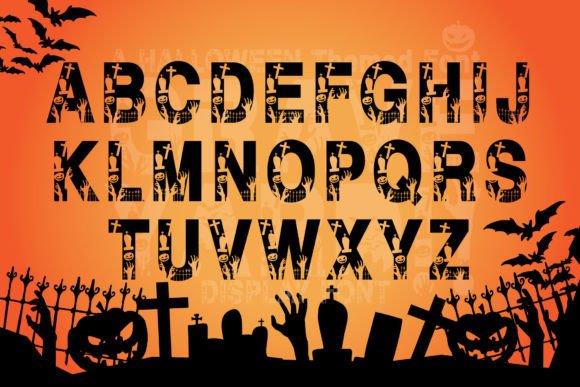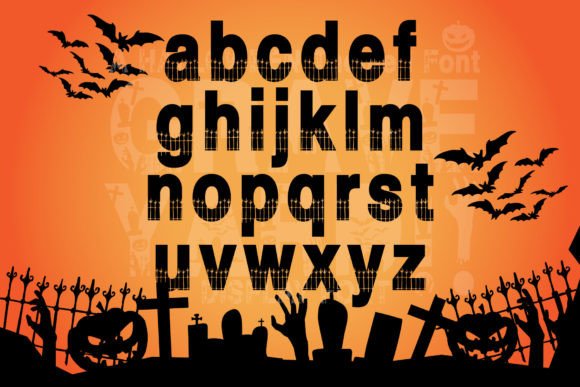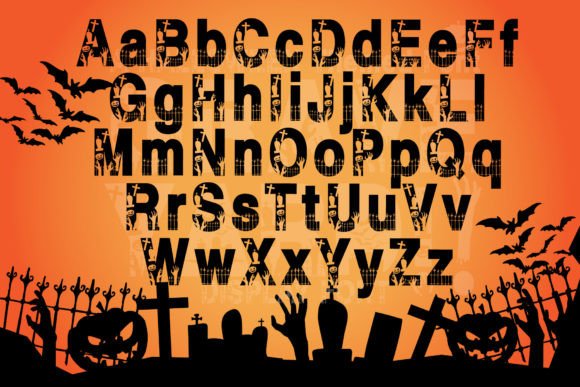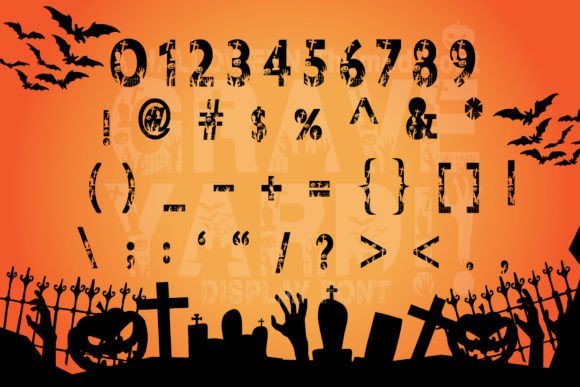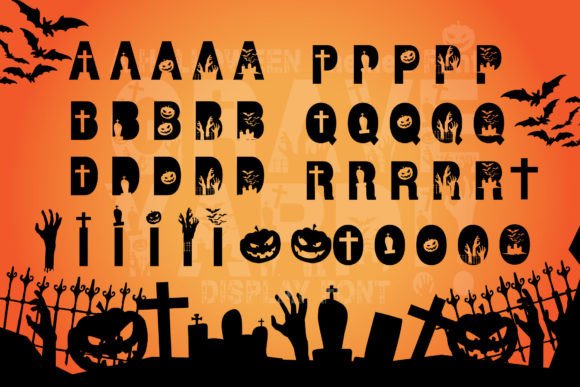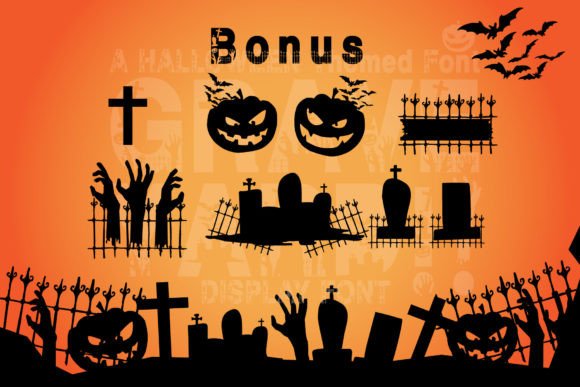
Unleash the Spookiness: All You Need to Know About Graveyard Font
As the spookiest time of the year approaches, designers and crafters are on the lookout for the perfect font to add a touch of eeriness to their Halloween-related projects. Look no further than the Graveyard Font, a thick-lettered and spooky decorative font that’s sure to send chills down the spine. In this article, we’ll dive into the world of Graveyard Font, exploring its features, benefits, and uses, as well as provide tips and inspiration for incorporating it into your designs.
What is Graveyard Font?
Graveyard Font is a unique and eye-catching decorative font that’s specifically designed to evoke the spooky and mysterious atmosphere of a graveyard. With its thick, bold letters and eerie feel, it’s the perfect addition to any Halloween-themed project, from invitations and decorations to crafts and DIY projects. The font’s distressed and worn look adds to its haunting charm, making it a standout choice for designers and crafters looking to create something truly one-of-a-kind.
Key Features of Graveyard Font
- Thick-Lettered and Spooky: Graveyard Font features thick, bold letters that are sure to grab attention and add a touch of spookiness to your designs.
- PUA Encoded: The font is PUA (Private Use Area) encoded, which means you can access all of the glyphs and swashes with ease, giving you maximum flexibility and creative control.
- Perfect for Halloween: Whether you’re working on a Halloween-themed project, a spooky craft, or a creepy design, Graveyard Font is the perfect choice.
- Endless Creative Possibilities: The only limit is your imagination! Use Graveyard Font to create unique and eye-catching designs, from invitations and decorations to crafts and DIY projects.
Benefits of Using Graveyard Font
So why choose Graveyard Font for your Halloween-related projects? Here are just a few benefits of using this amazing font:
- Adds a Touch of Spookiness: Graveyard Font is designed to evoke the spooky and mysterious atmosphere of a graveyard, adding a touch of eeriness to your designs.
- Standout Designs: With its unique and eye-catching design, Graveyard Font is sure to make your projects stand out from the crowd.
- Easy to Use: The font is PUA encoded, making it easy to access all of the glyphs and swashes, even for designers who are new to using decorative fonts.
- Versatile: Graveyard Font can be used for a wide range of projects, from invitations and decorations to crafts and DIY projects.
Tips for Using Graveyard Font
Here are a few tips for incorporating Graveyard Font into your designs:
- Experiment with Different Sizes: Try using Graveyard Font in different sizes to add visual interest and create a sense of hierarchy in your designs.
- Combine with Other Fonts: Combine Graveyard Font with other fonts to create a unique and eye-catching design.
- Use with Images: Use Graveyard Font with images, such as spooky photographs or illustrations, to add a touch of eeriness to your designs.
- Get Creative with Colors: Experiment with different colors to add a pop of color and create a sense of atmosphere in your designs.
Inspiration for Using Graveyard Font
Still looking for inspiration? Here are a few ideas for using Graveyard Font:
- Halloween Invitations: Use Graveyard Font to create spooky and eye-catching invitations for Halloween parties and events.
- Spine-Chilling Decorations: Use Graveyard Font to create spooky decorations, such as banners, signs, and garlands.
- Crafty Projects: Use Graveyard Font to add a touch of spookiness to crafty projects, such as DIY decorations, cards, and gift tags.
- Creepy Crafts: Use Graveyard Font to create creepy crafts, such as spooky lanterns, tombstones, and ghosts.